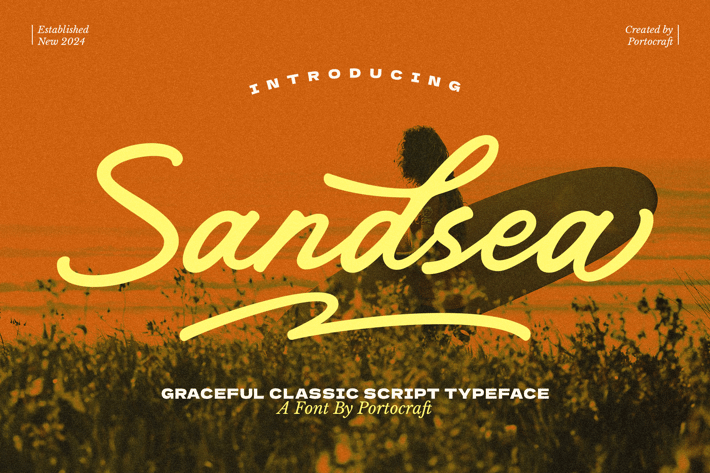
Sandsea Graceful Font
Sandsea Graceful Fonte is a stylish font It has both perfect for wedding invitations, elegant handwritten logos and branding, websites, social media quotes, and more! Included are a full set of beginning.
- Unique Letterforms